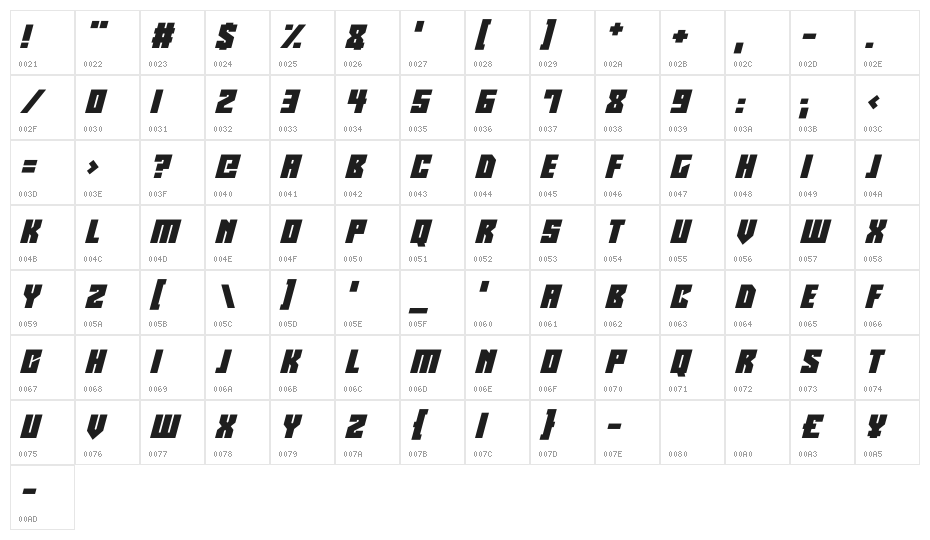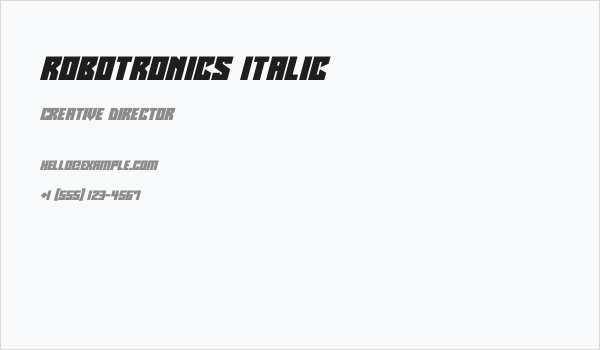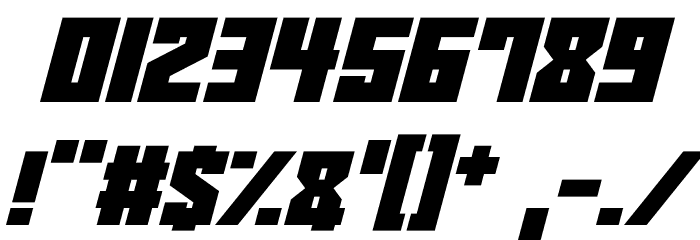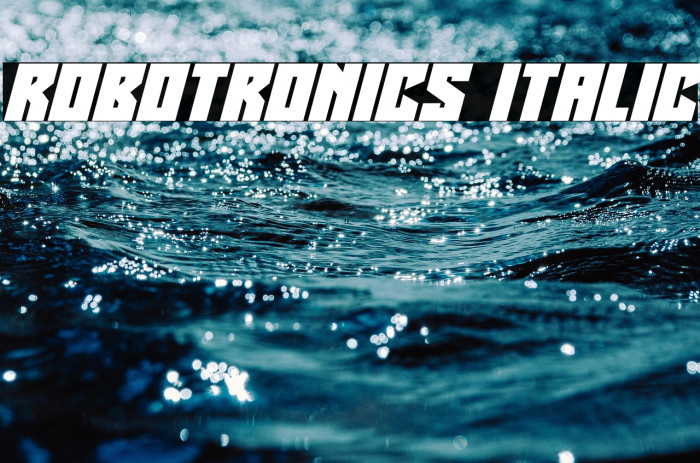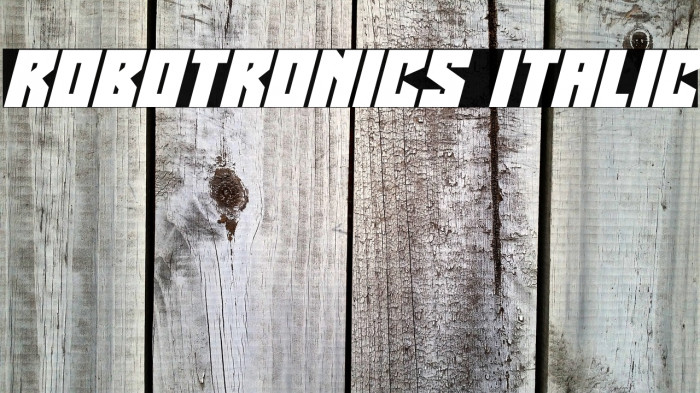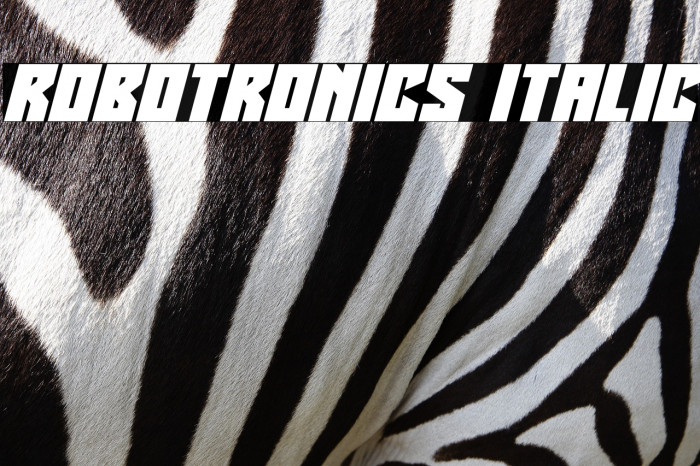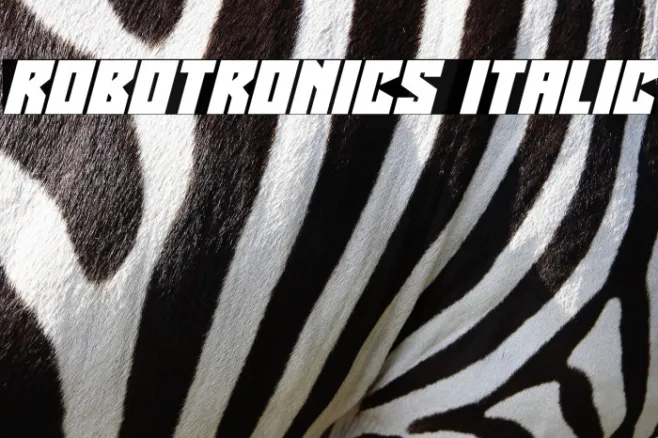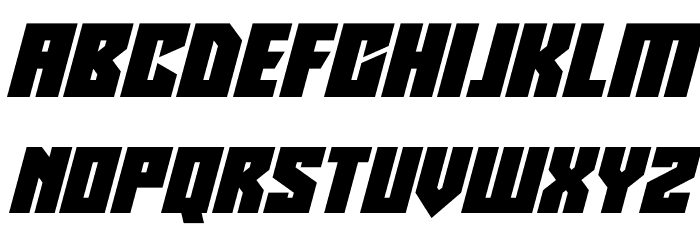
Robotronics Italic Font
Robotronics Italic Description
This font features a bold and dynamic design with a futuristic and mechanical aesthetic. The characters are sharply angled, giving a sense of movement and speed. The uppercase and lowercase letters maintain a consistent style, with a strong emphasis on geometric shapes and sharp edges. The numbers and special characters follow the same design principles, ensuring uniformity across the font. The italic slant adds to the sense of motion, making it ideal for projects that require a modern and energetic feel.
| Proposed Projects | Ideal for technology branding, video game titles, sports team logos, and futuristic-themed posters. |